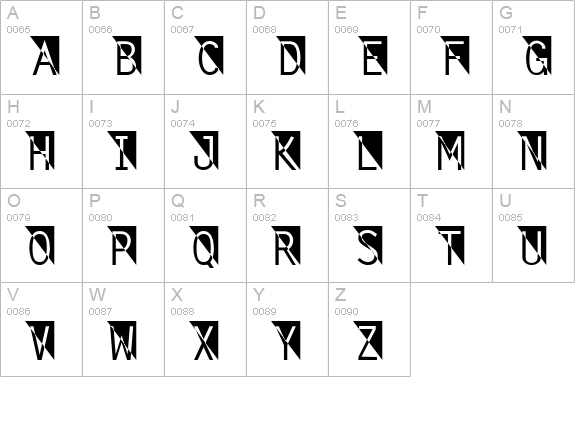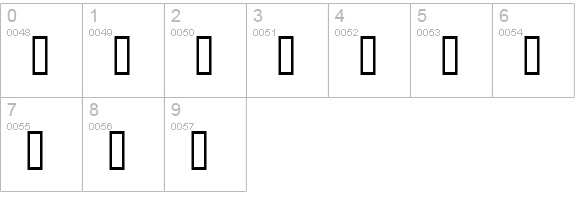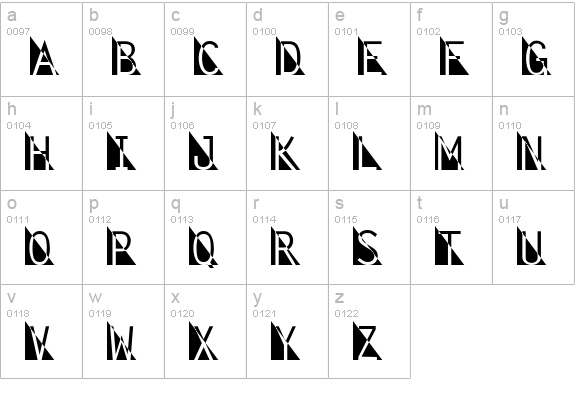
Fantomet Font Details
Fantomet font is a versatile and stylish typeface that exudes a sense of mystery and elegance. With its bold letterforms and unique design, this font is perfect for adding a touch of sophistication to your projects. Whether you are designing a logo, creating a poster, or crafting a website, Fantomet font will make your text stand out and leave a lasting impression. The best part is that Fantomet font is available for free download at FontsMarket.com. You can easily access this stunning font and start using it in your designs today. Don't miss out on the opportunity to elevate your projects with the captivating charm of Fantomet font. Download it now and let your creativity flow!